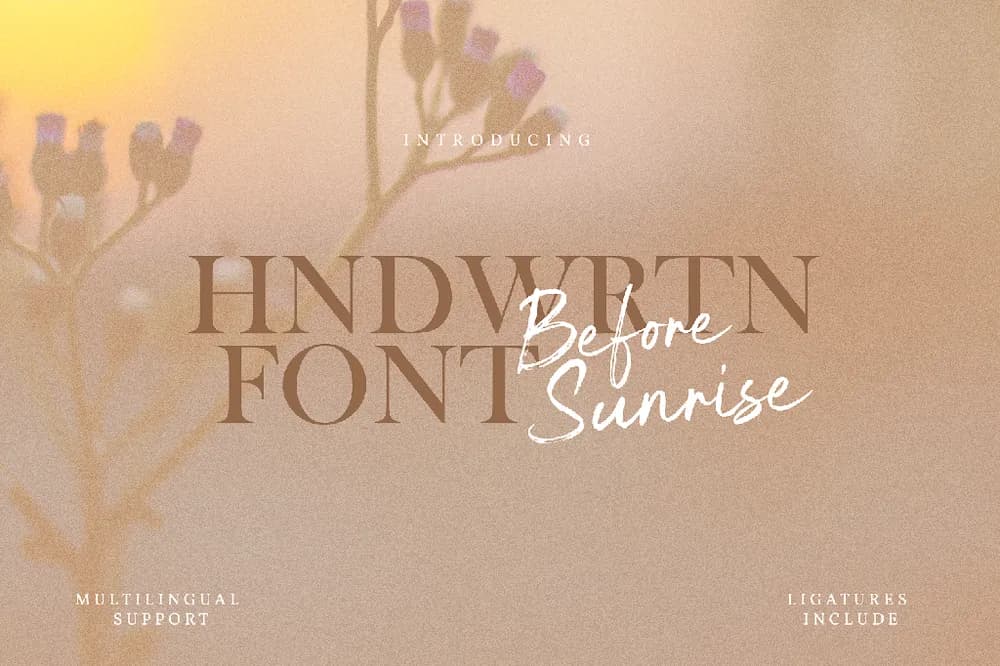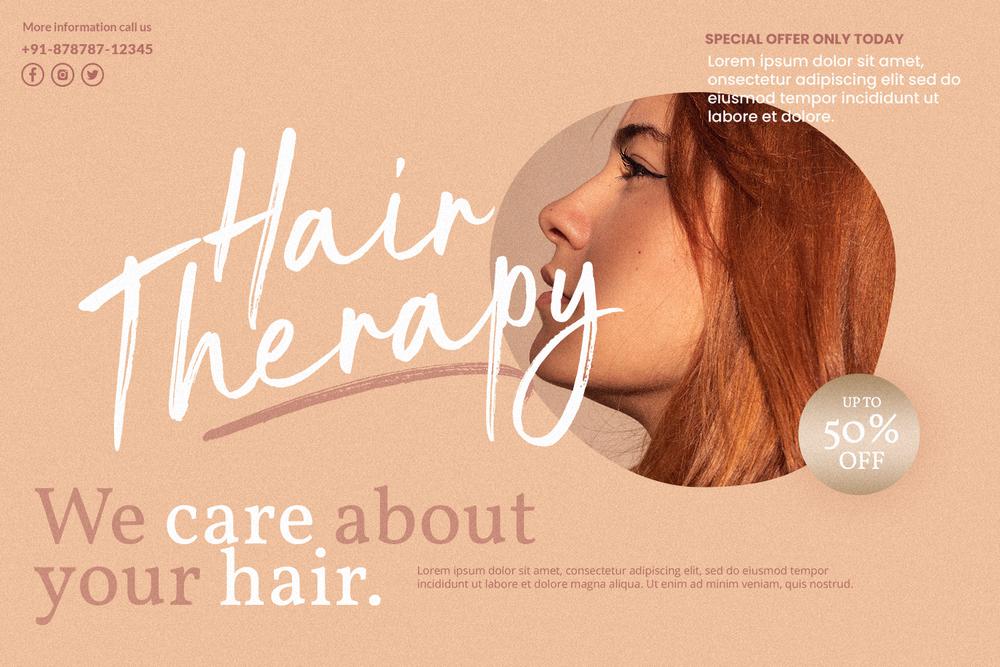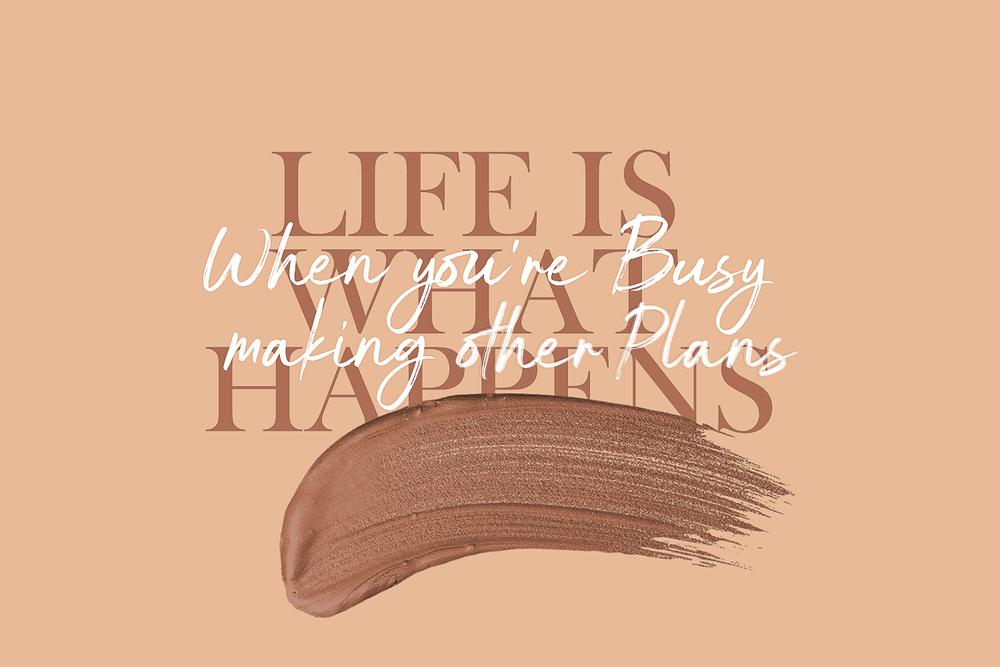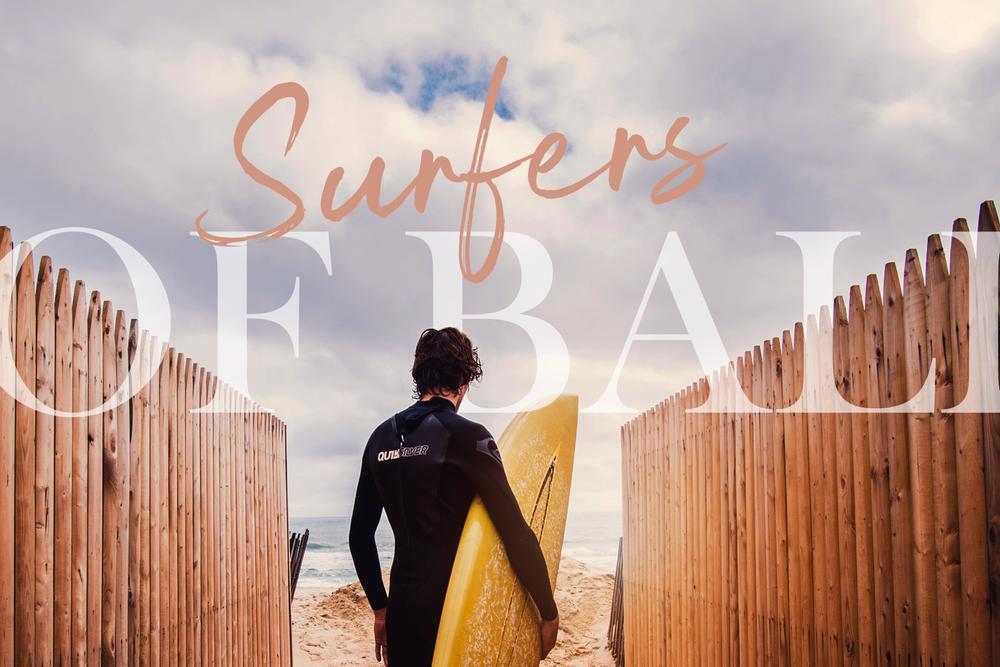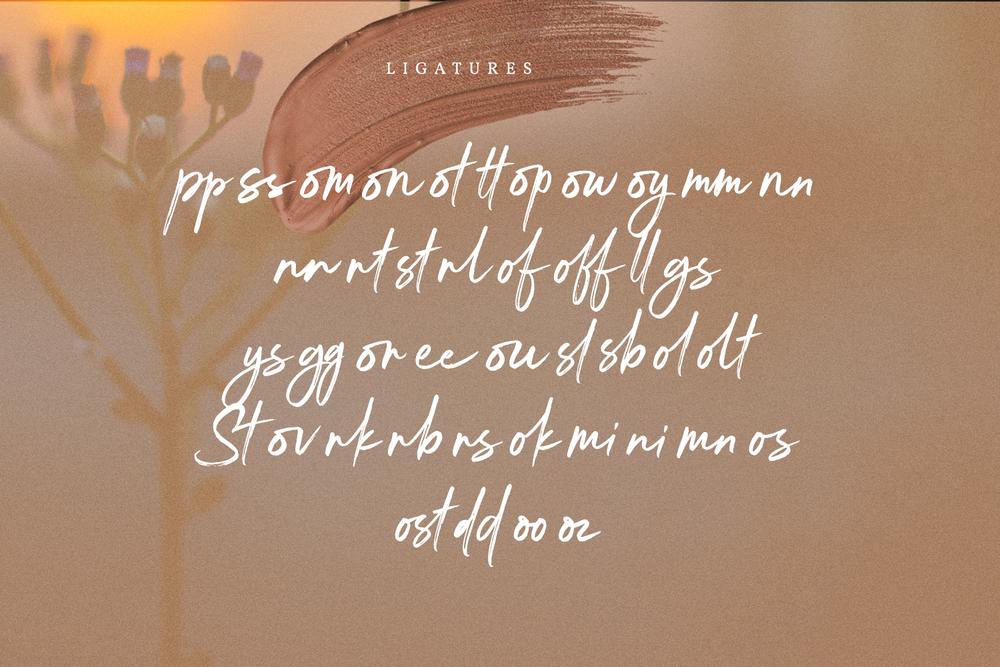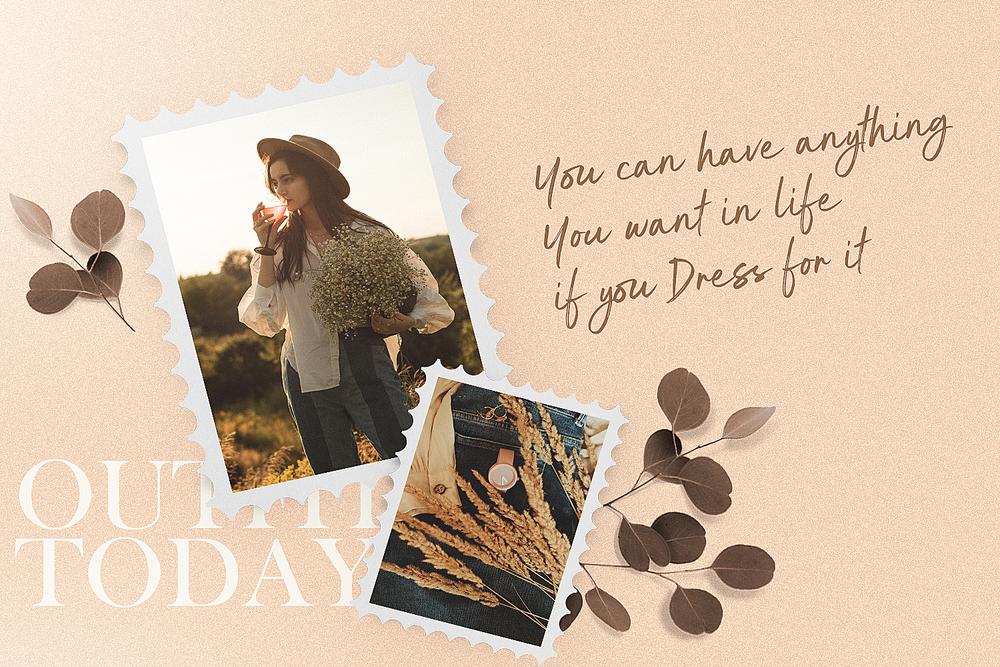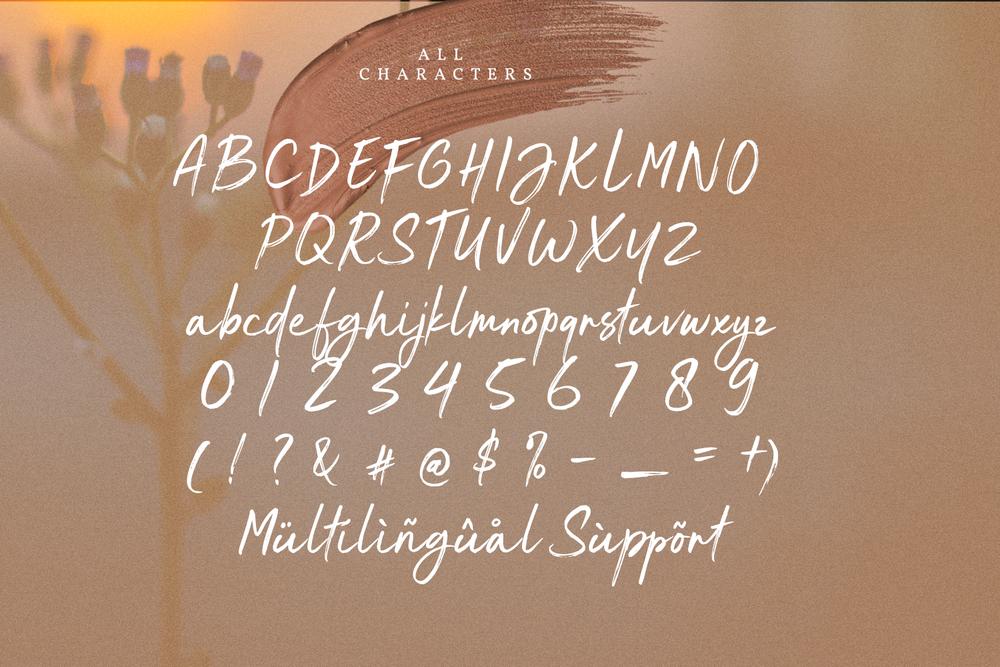
ntroducing: Before Sunrise A rustic, dapper handwritten font with a personal charm. With quick dry strokes and a signature style, this font is perfect for branding projects, homeware designs, product packaging - or simply as a stylish text overlay to any background image. Fonts are provided in TTF, OTF & WOFF formats. I recommend installing the TTF files, and the OTF only if necessary. There is no difference in function with either format. Fonts include : multilingual support. Ligatures Are also available for several lowercase characters accessible via software with opentype capability or a glyphs panel, e.g. Photoshop/Illustrator. That's it! I really hope you enjoy it - please do let me know what you think, comments & likes are always hugely welcomed and appreciated. More importantly, please don't hesitate to drop me a message if you have any issues or queries. Now enough of reading this, get out there and make it happen :)